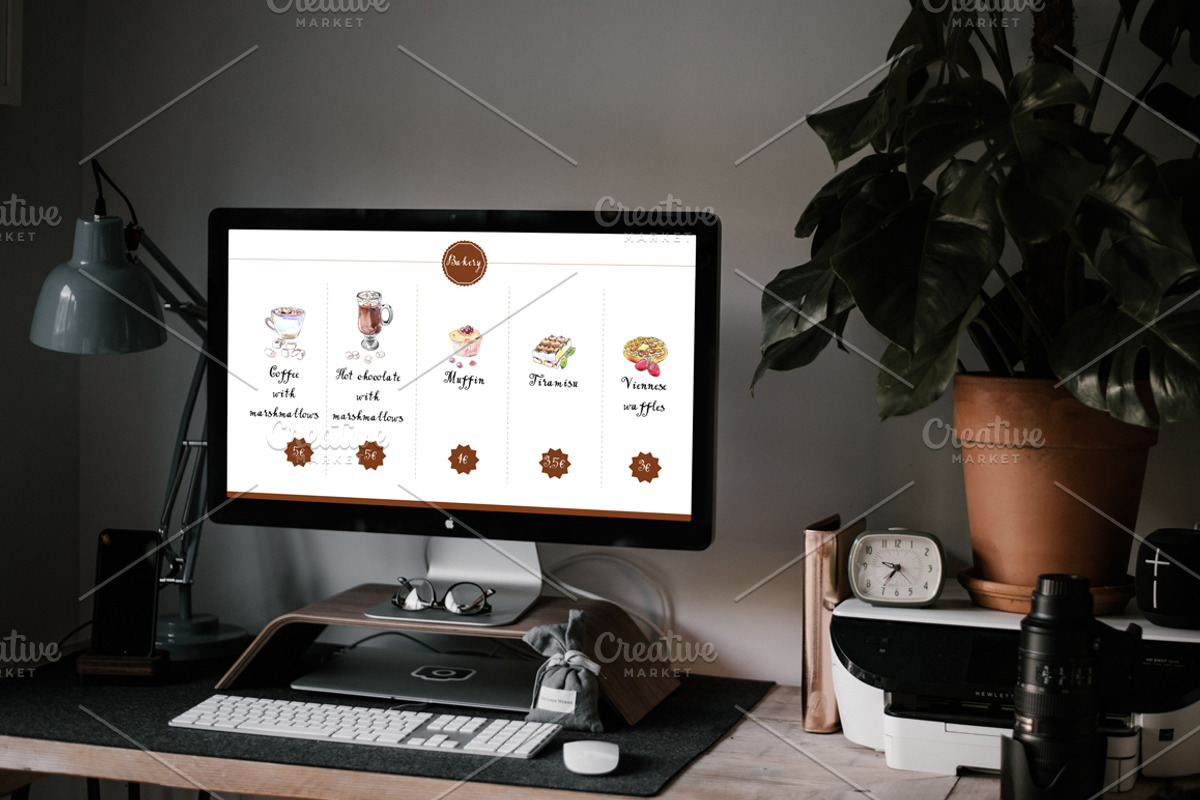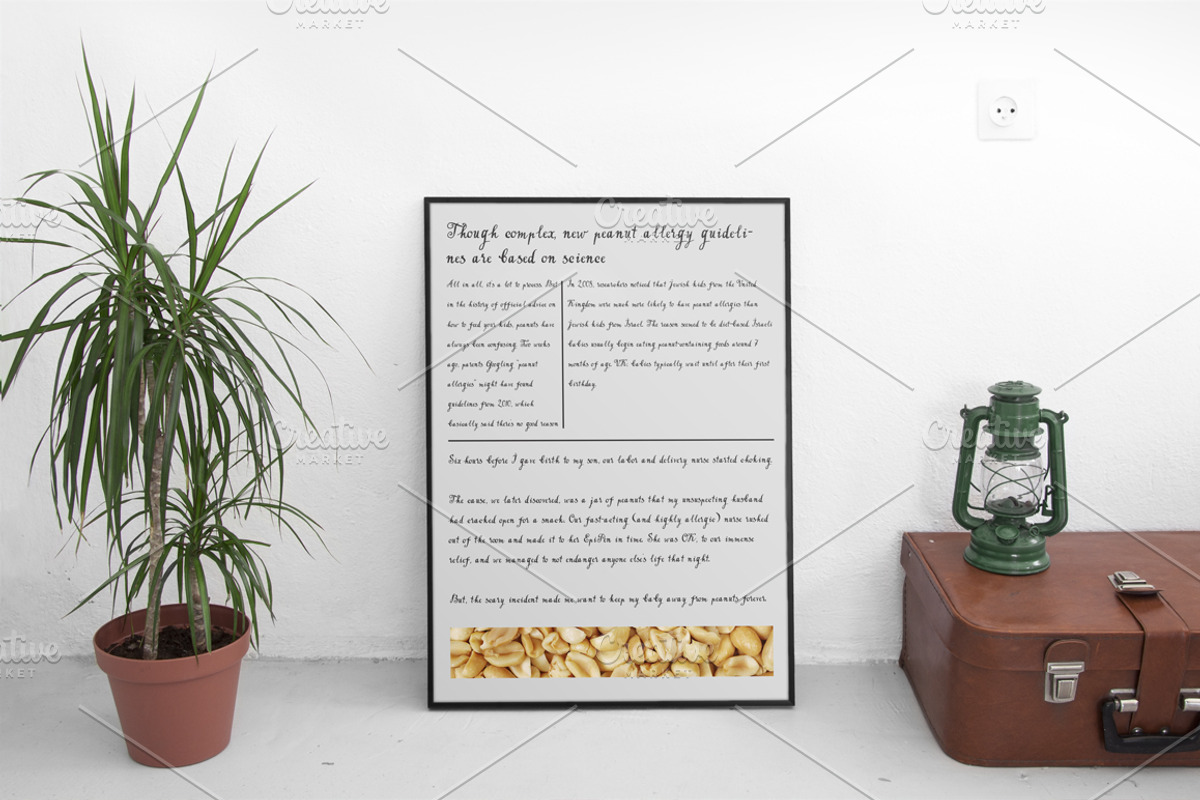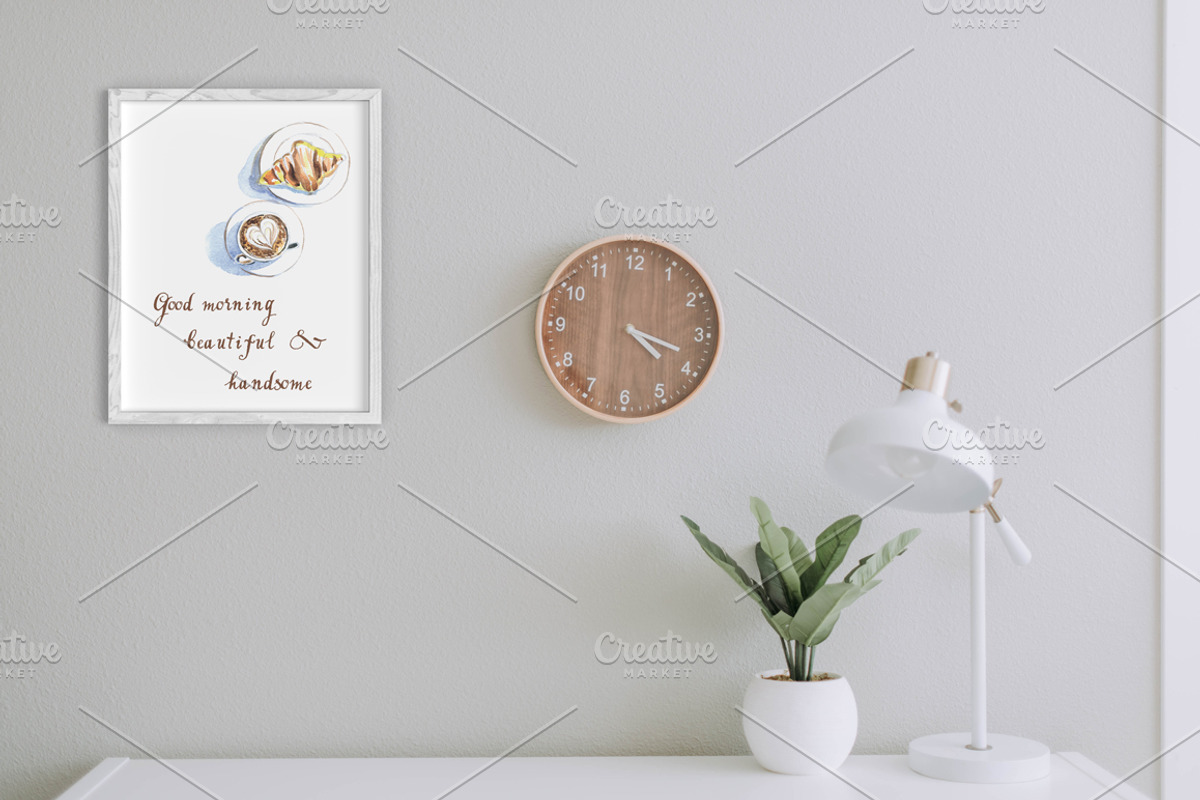
Handwritten tapeface Bakery
Introduce my font Bakery is a unique blend of the classic and modern handwritten font. I used a pen for calligraphy and black ink. Bakery perfect for weddings, events, invitations, escort cards, table numbers, header menus, displays, logos, slider blogs, custom addresses, stamps, packaging, greeting card, etc.
This font includes Latin, Russian, and Ukrainian Cyrillic.
Features: Basic Latin A-Z and a-z Basic Russian А-Я and а-я Basic Ukrainian А-Я and а-я Numeral & Punctuation Script 248 Glyphs